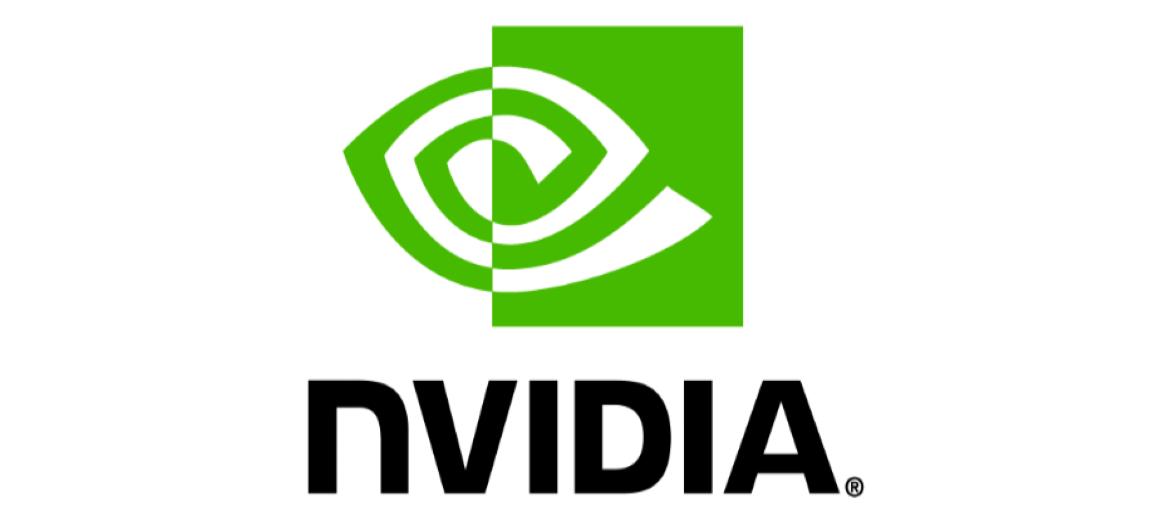
Nvidia Font
The Nvidia Font is a defining element of the brand, symbolizing cutting-edge technology, innovation, and high performance. Its sleek, geometric letterforms convey precision and modernity, perfectly complementing the company’s reputation in graphics, AI, and gaming. This free alternative captures the essence of Nvidia’s bold visual identity.
About Nvidia
The Nvidia Font represents the innovative spirit of one of the world’s leading technology companies. Known for its GPUs, AI computing solutions, and gaming hardware, Nvidia relies on its typography to communicate strength, reliability, and forward-thinking design. Inspired by the Handel Gothic typeface, the font blends geometric precision with subtle curves to create a modern, approachable style. Ideal for tech-related projects, branding, and promotional materials, this typeface mirrors Nvidia’s commitment to high-performance computing and visual excellence, making it a versatile choice for designers seeking a professional, contemporary aesthetic.